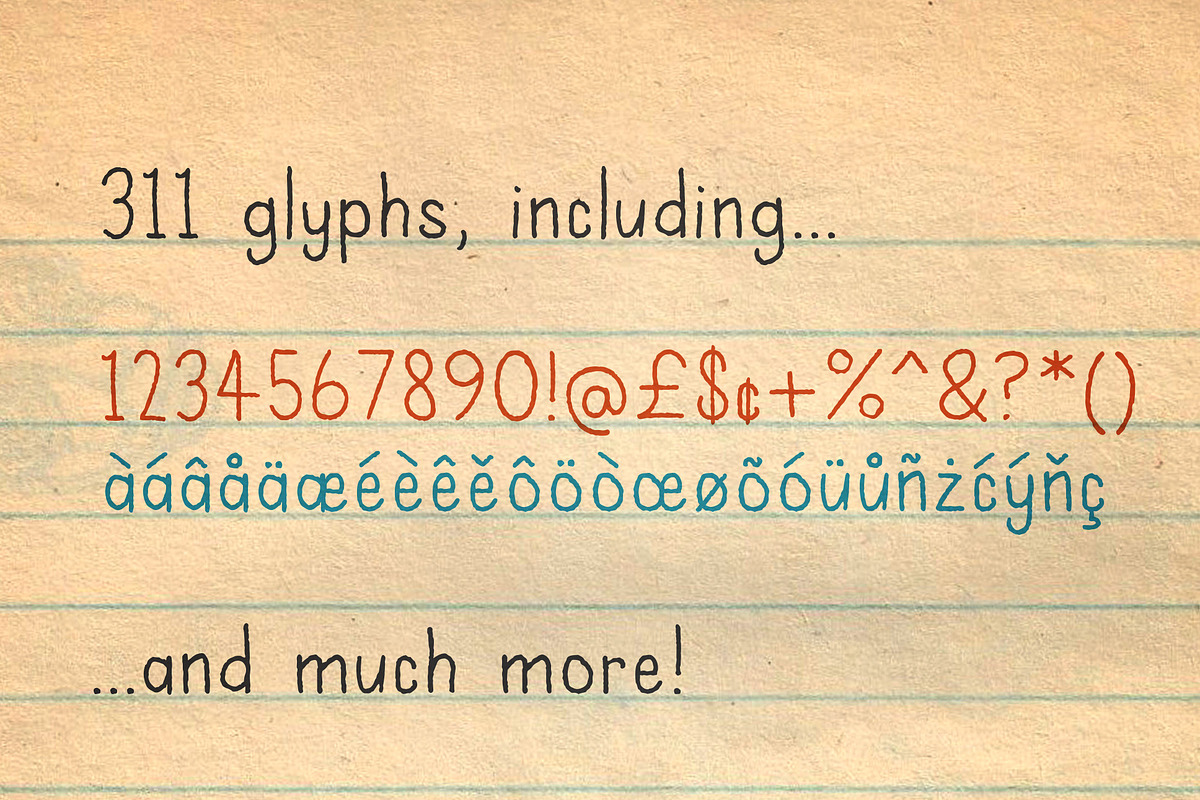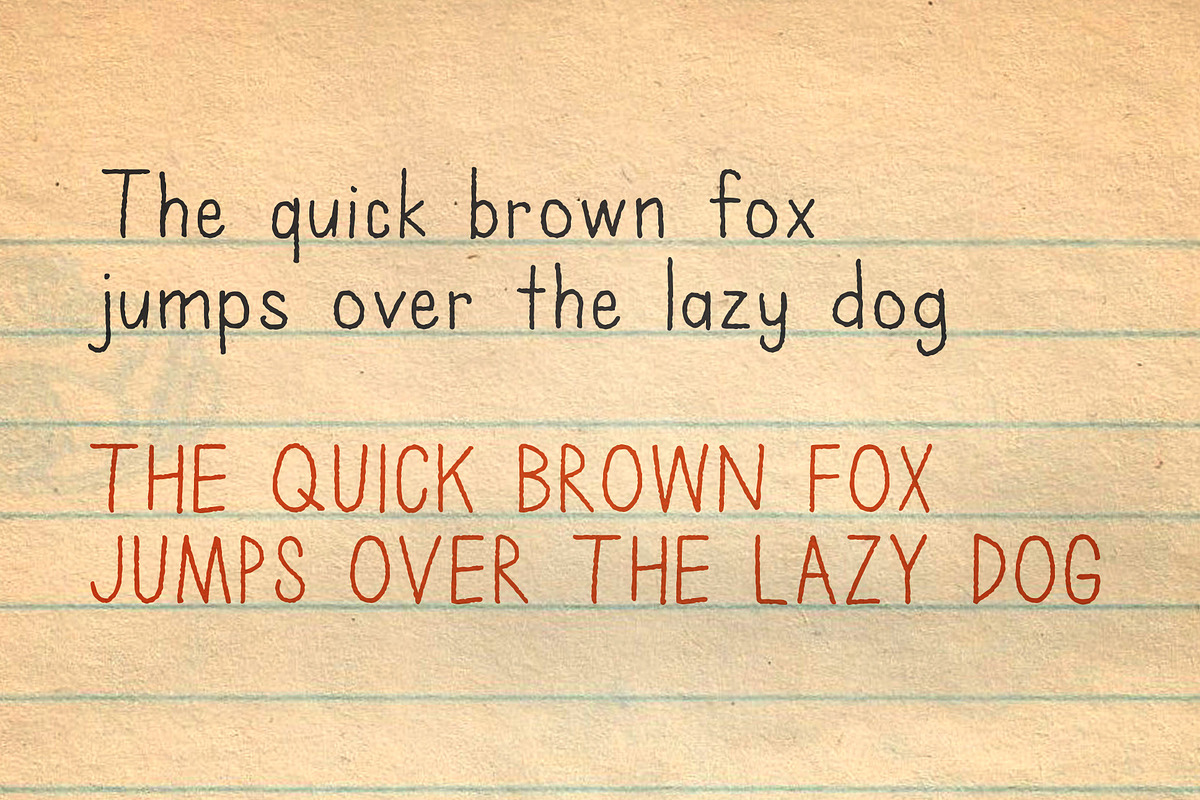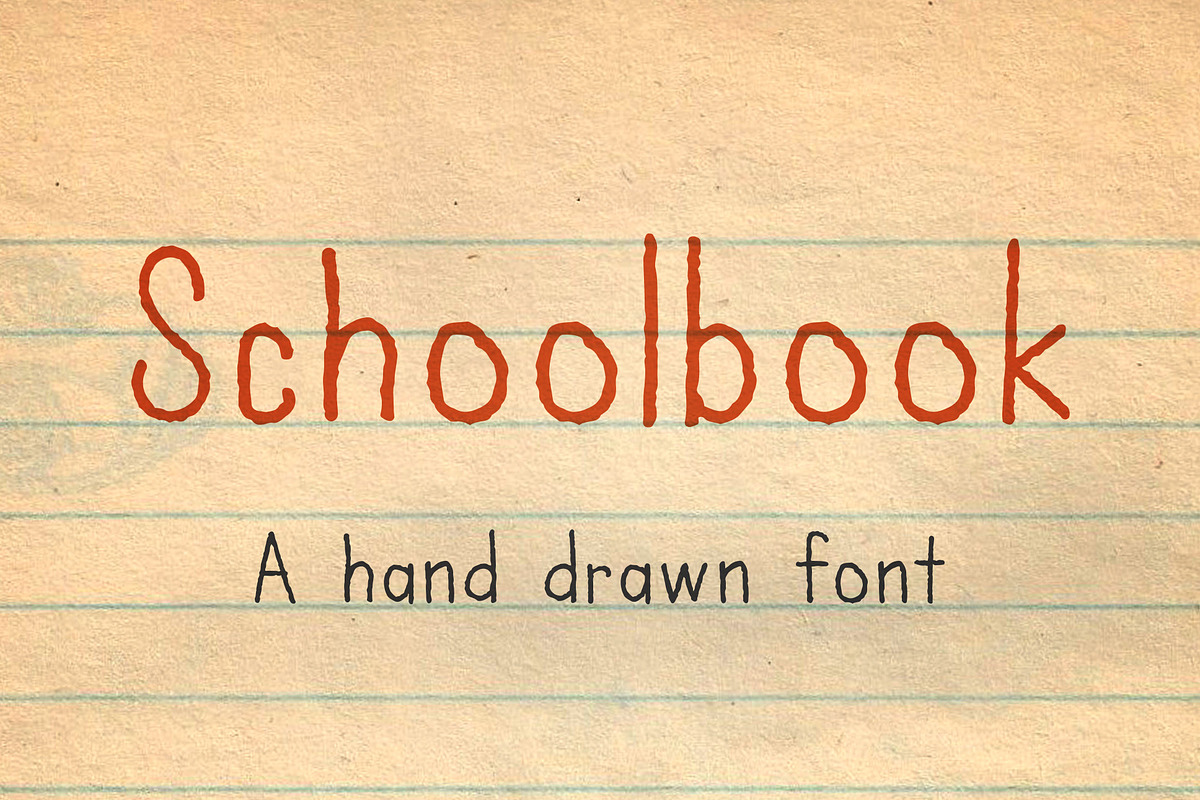
Schoolbook — A hand drawn font
A hand drawn typeface for you to use in your personal or commercial project
Includes all European glyphs!
Schoolbook — A hand drawn font by Handy Fonts fits naturally into Branding, posters, packaging, typography.